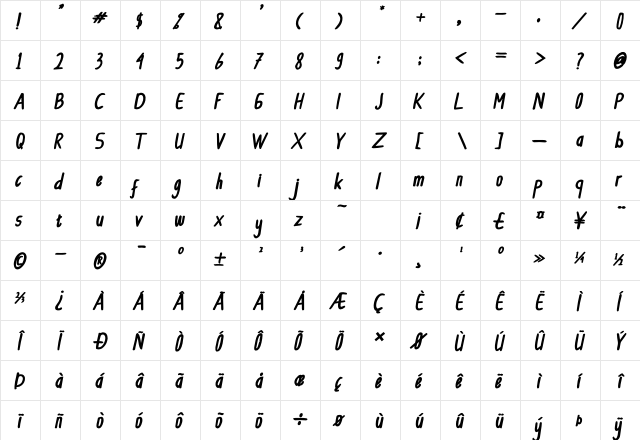
CollBesT Bold Italic Font Preview
| Designer | Ahmad Muslimin |
Design Context for CollBesT Typeface
CollBesT takes a measured approach to typography — its balanced proportions and neutral character make it a reliable workhorse for both digital and print work. The slanted form adds forward momentum and visual energy. The heavy weight commands attention and anchors typographic hierarchies.